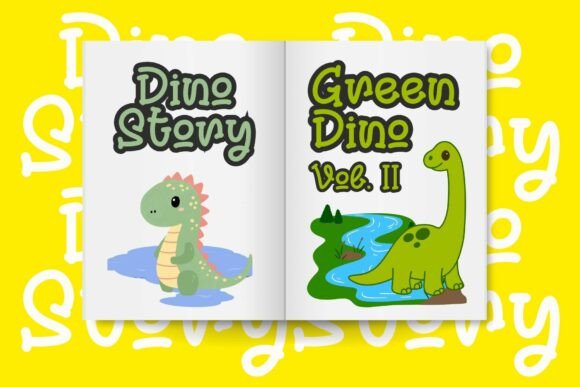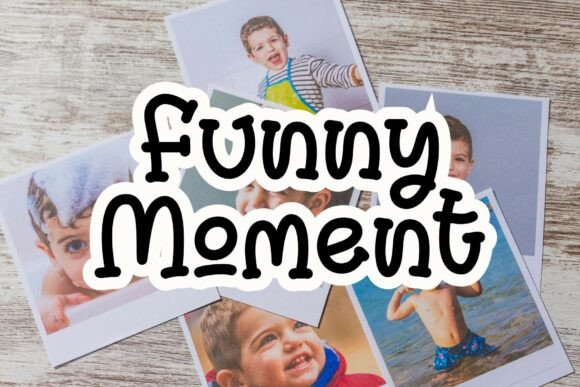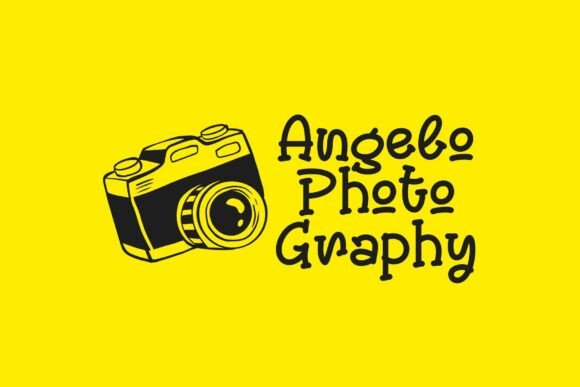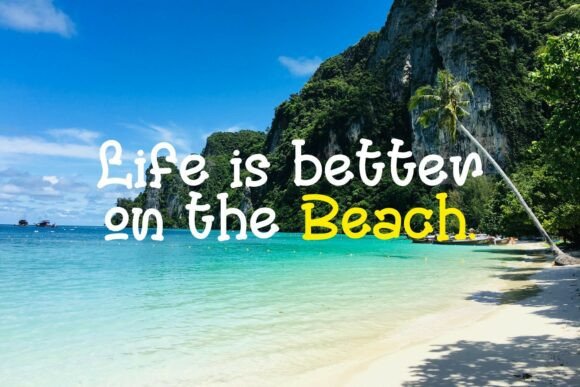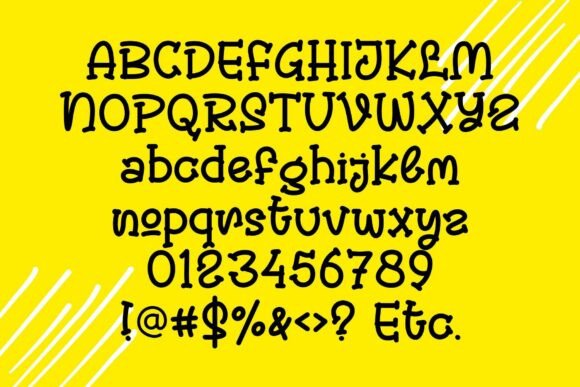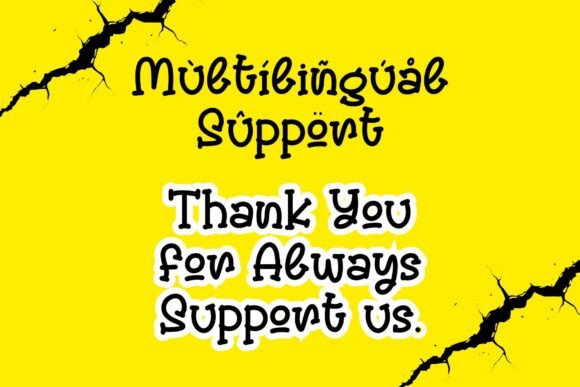
Broom Stick Font: A Playful and Whimsical Handwritten Style
The Broom Stick font is a delightful and charming handwritten style that exudes a sense of playfulness and whimsy. With its tall, rounded characters and slightly irregular baseline, this font is perfect for designers and crafters looking to add a touch of magic and imagination to their projects.
Characteristics of the Broom Stick Font
The Broom Stick font presents a casual and friendly design that gives off a lighthearted and fun vibe. Its unique characteristics include:
- Tall, rounded characters that add a touch of elegance and sophistication
- Slightly irregular baseline that gives the font a handmade, organic feel
- Playful and whimsical style that’s perfect for children’s books, cartoon titles, and creative projects
Uses for the Broom Stick Font
The Broom Stick font is versatile and can be used in a variety of projects, including:
- Children’s books: The font’s playful and whimsical style makes it perfect for kids’ books, educational materials, and activity sheets.
- Cartoon titles: The font’s fun and lighthearted vibe makes it ideal for cartoon titles, animations, and comics.
- Product packaging: The font’s unique and playful style makes it perfect for product packaging, labels, and branding materials.
- Creative projects: The font’s whimsical style makes it perfect for creative projects, such as art journals, scrapbooking, and mixed media.
Benefits of Using the Broom Stick Font
Using the Broom Stick font in your projects offers several benefits, including:
- Adds a touch of whimsy and imagination to your projects
- Creates a lighthearted and fun vibe that’s perfect for kids’ projects
- Versatile and can be used in a variety of projects
- Easy to read and understand, making it perfect for educational materials
Tips for Using the Broom Stick Font
Here are some tips for using the Broom Stick font in your projects:
- Use it in combination with other fonts to create a unique and playful look
- Use it for headings and titles to add a touch of whimsy and imagination
- Pair it with images and illustrations to create a fun and engaging design
The Broom Stick font is a delightful and charming handwritten style that’s perfect for designers and crafters looking to add a touch of magic and imagination to their projects. With its playful and whimsical style, tall, rounded characters, and slightly irregular baseline, this font is sure to bring a smile to your face and inspire your creativity.
Examples of the Broom Stick Font in Use
Here are some examples of the Broom Stick font in use:
- A children’s book cover featuring the font in a bright, playful color
- A cartoon title sequence using the font in a fun, animated style
- A product packaging label featuring the font in a bold, eye-catching color
- An art journal page featuring the font in a whimsical, mixed-media design
The Broom Stick font is a versatile and playful font that’s perfect for designers and crafters looking to add a touch of magic and imagination to their projects. With its unique characteristics, uses, and benefits, this font is sure to inspire your creativity and bring a smile to your face. So why not give it a try and see what kind of creative projects you can come up with?